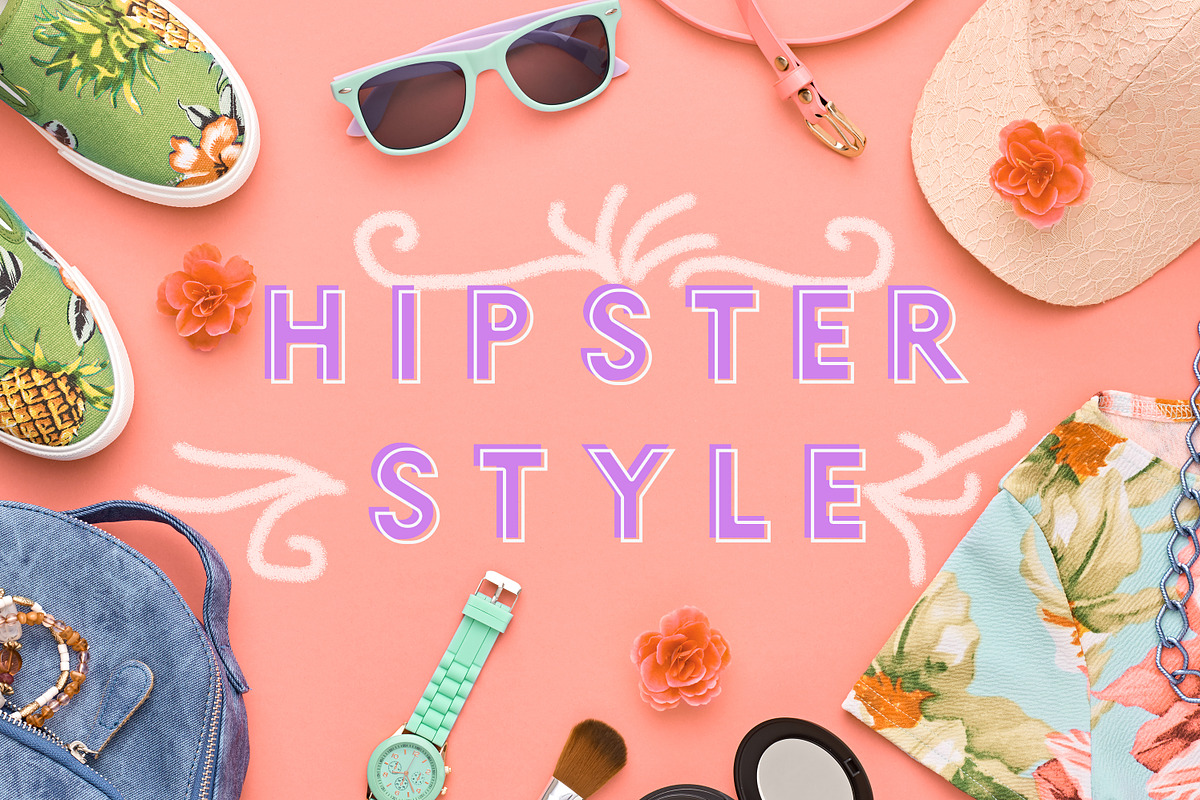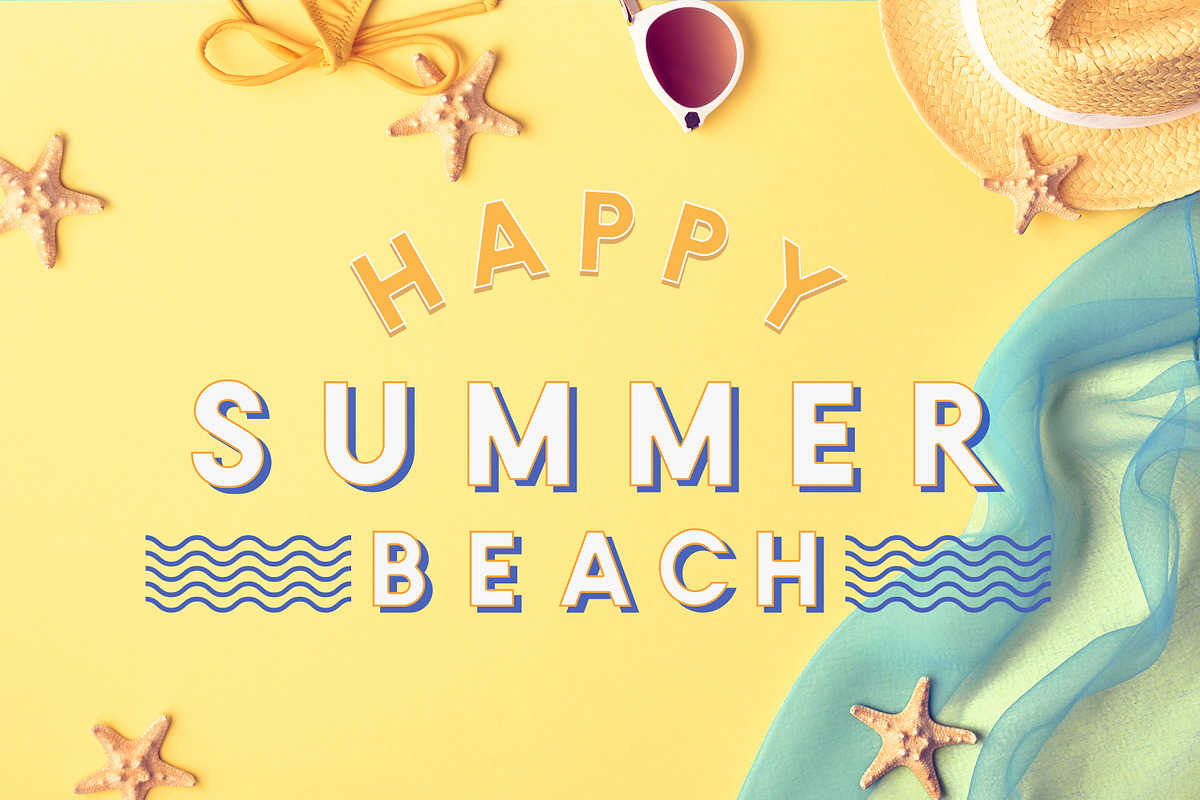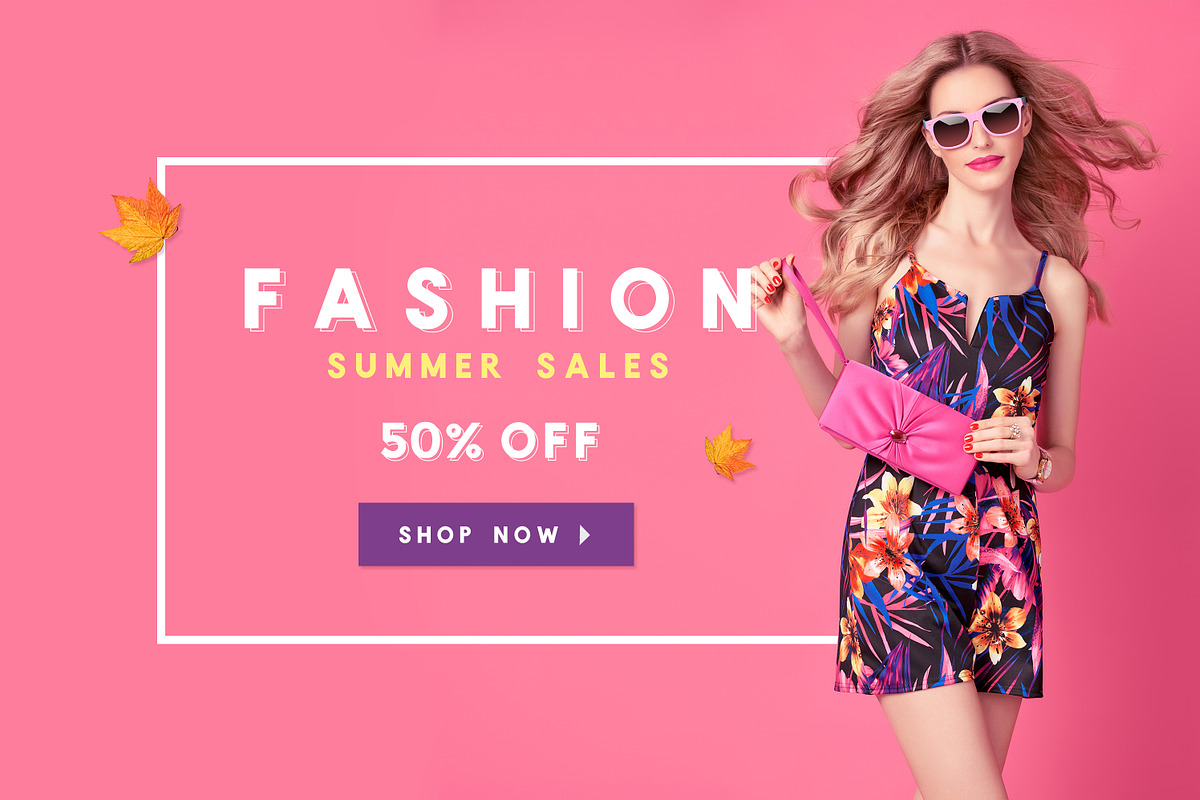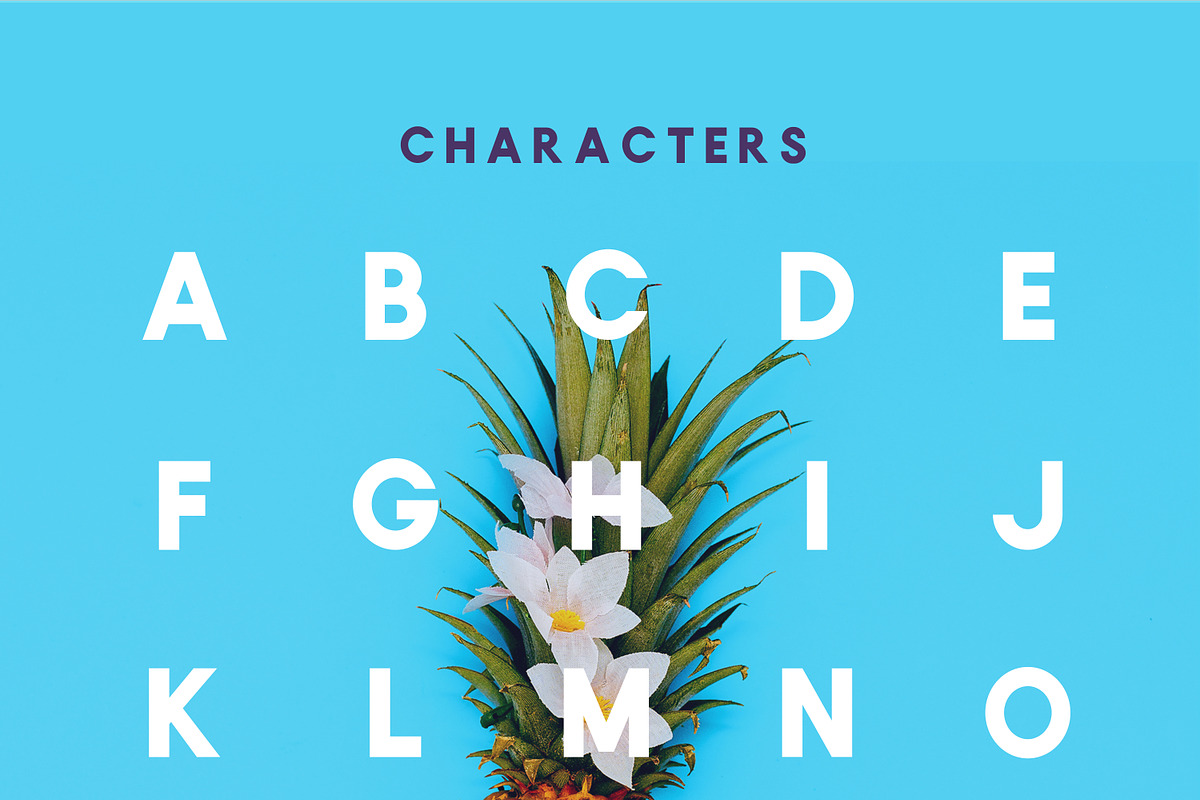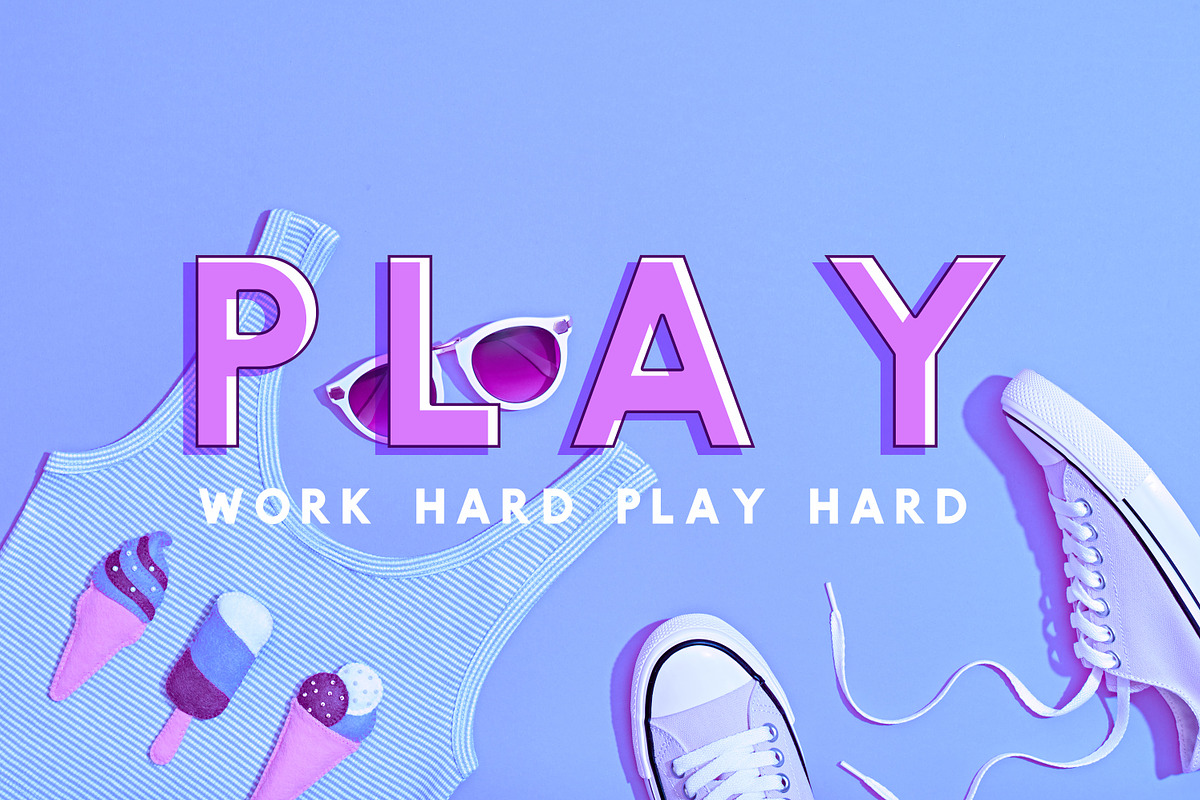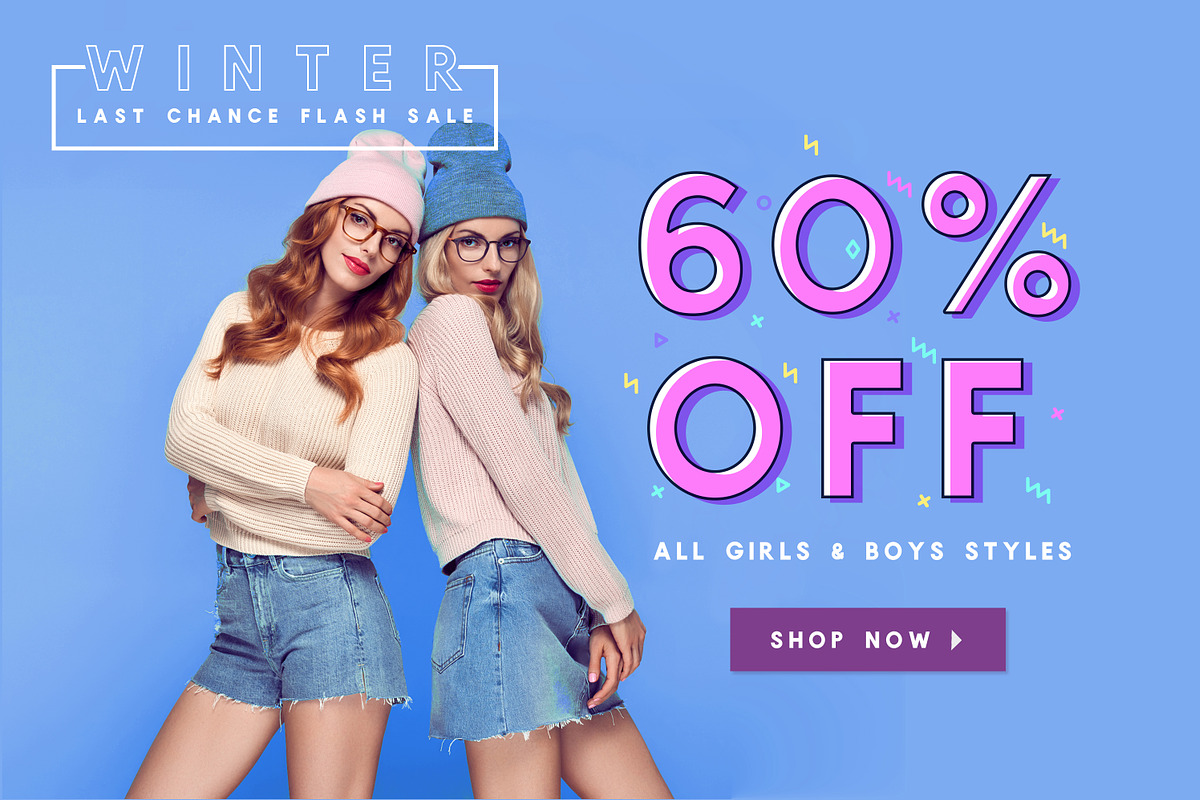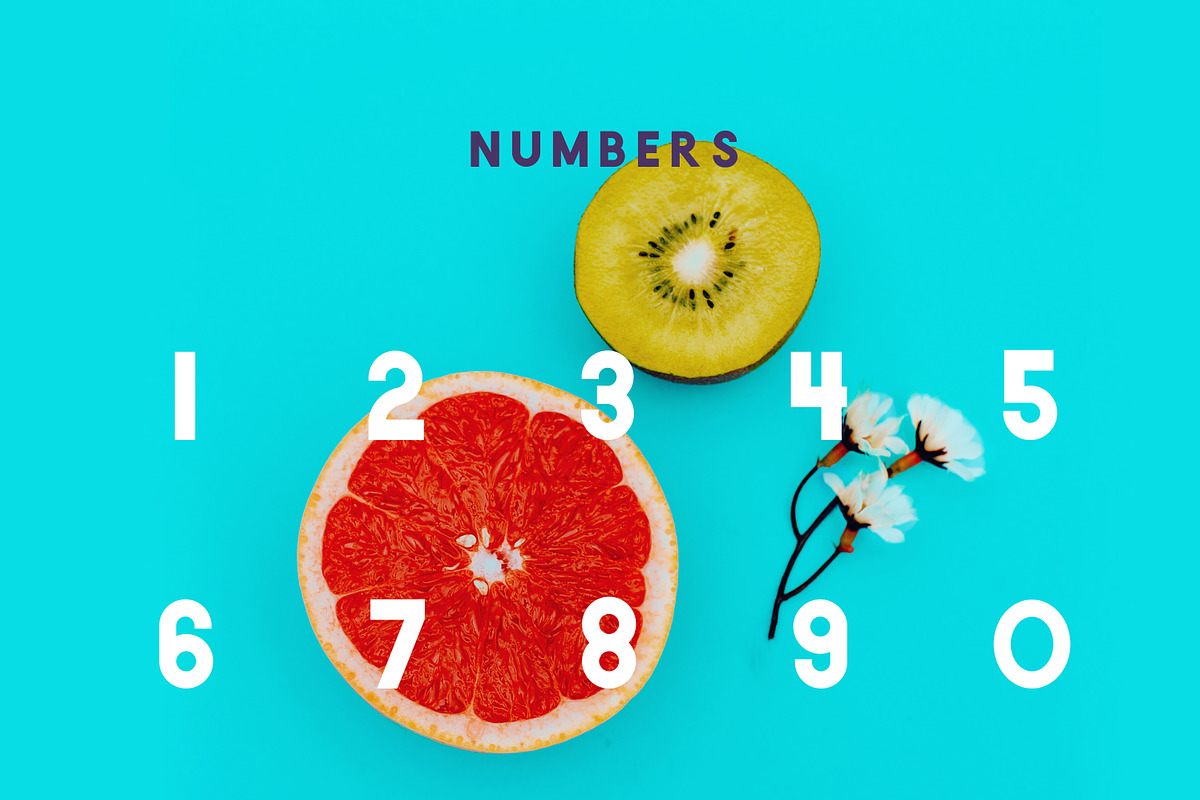
VICTORIA - Glamour, Elegant Typeface
Victoria Sans is simple clean glamour & bold looking typeface that really nice used for headline, banner, logo, poster and many more. It’s a lovely and unique sans serif font, allowing you to make each word look completely stylish! It Suits best for modern / clean designs, logos, headlines, banners and templates etc. It looks gorgeous in all caps with a wide-set spacing if you want to try a classy look, or beautiful on its own in capital and lowercase letters for something completely timeless.
- It looks gorgeous in all caps with a wide-set spacing if you want to try a classy look, or beautiful on its own in capital and lowercase let
- Victoria Regular
- Victoria OUTLINE
- Victoria ROUNDED
- Victoria ROUNDED OUTLINE